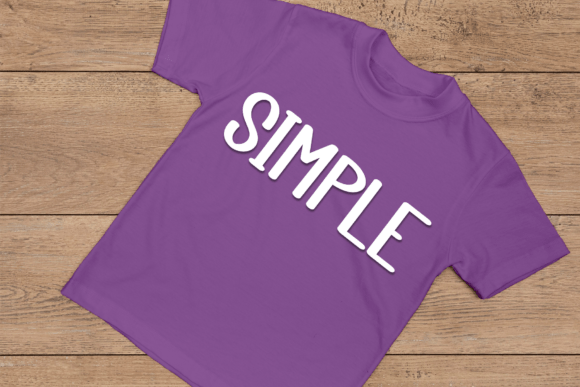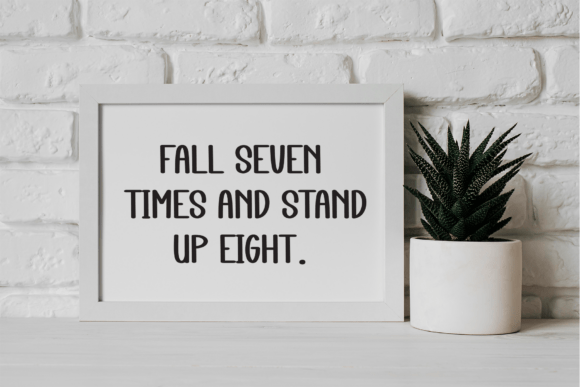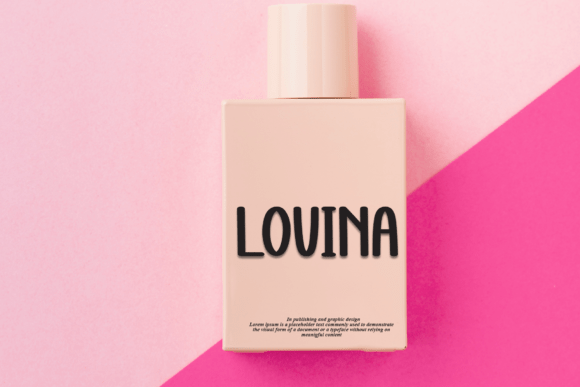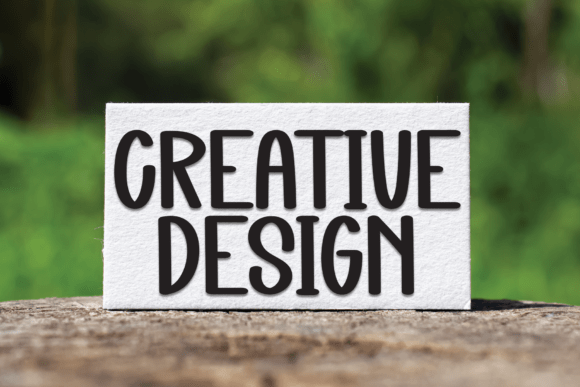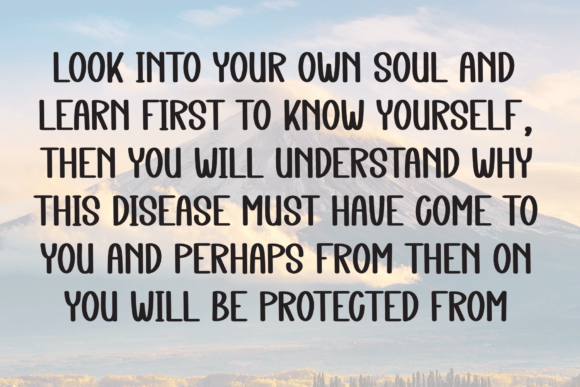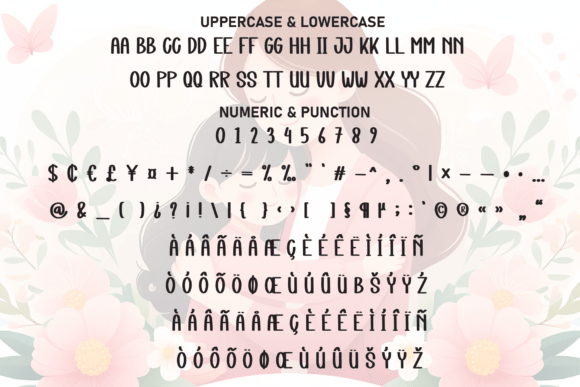
Introduction to Motherday Font
As designers, we’ve all been there – staring at a blank canvas, searching for that perfect font to bring our creative project to life. It’s in these moments of inspiration that we stumble upon something truly special, something that makes our design dreams come true. And that’s exactly what we’re excited to share with you today – the delightful Motherday Font, a charming display font that’s sure to infuse your designs with warmth and personality.
With its seamless blend of sweetness and cheerfulness, the Motherday Font is perfect for personalizing wedding invitations, delicate cards, and other creative projects. Whether you’re a seasoned designer or just starting out, this high-quality font is a valuable addition to your design resource library – and the best part? It’s available for free download, making it a must-have for any design enthusiast.
Key Features of Motherday Font
- High-quality, unique font design perfect for creative projects and special occasions, including Mother’s Day.
- Designed to be versatile and elegant, making it suitable for a wide range of creative projects, from invitations to posters.
Honest Review: Motherday Font
I recently had the chance to work with the Motherday Font, and I must say it’s been a game-changer for my creative projects. The font is free to download, which is always a plus in my book, but what really sets it apart is its high quality and versatility.
What works well with the Motherday Font is its ability to add a touch of elegance and sophistication to any design project. The font is perfect for creating a warm and inviting atmosphere, making it ideal for projects that require a personal touch. ✨ The font’s transparency feature also allows for a seamless integration with images and backgrounds, making it a great resource for designers who want to add a little extra something to their work.
Some limitations of the Motherday Font include its limited character set, which can make it difficult to use for longer blocks of text. ⚠️ Additionally, the font may not be suitable for projects that require a more modern or edgy look, as it tends to lean towards a more classic and traditional style.
Overall, I’m really impressed with the Motherday Font and would definitely recommend it to designers who are looking for a high-quality, free design resource. It’s perfect for creative projects that require a touch of warmth and elegance.
- Perfect for personal projects and weddings
- Transparency feature for seamless integration
The Motherday Font is perfect for creative projects, such as invitations, greeting cards, and social media graphics. It’s also great for design resources, like logos, branding materials, and website design. With its high-quality design and transparent background, the Motherday Font is a versatile and stylish addition to any project.